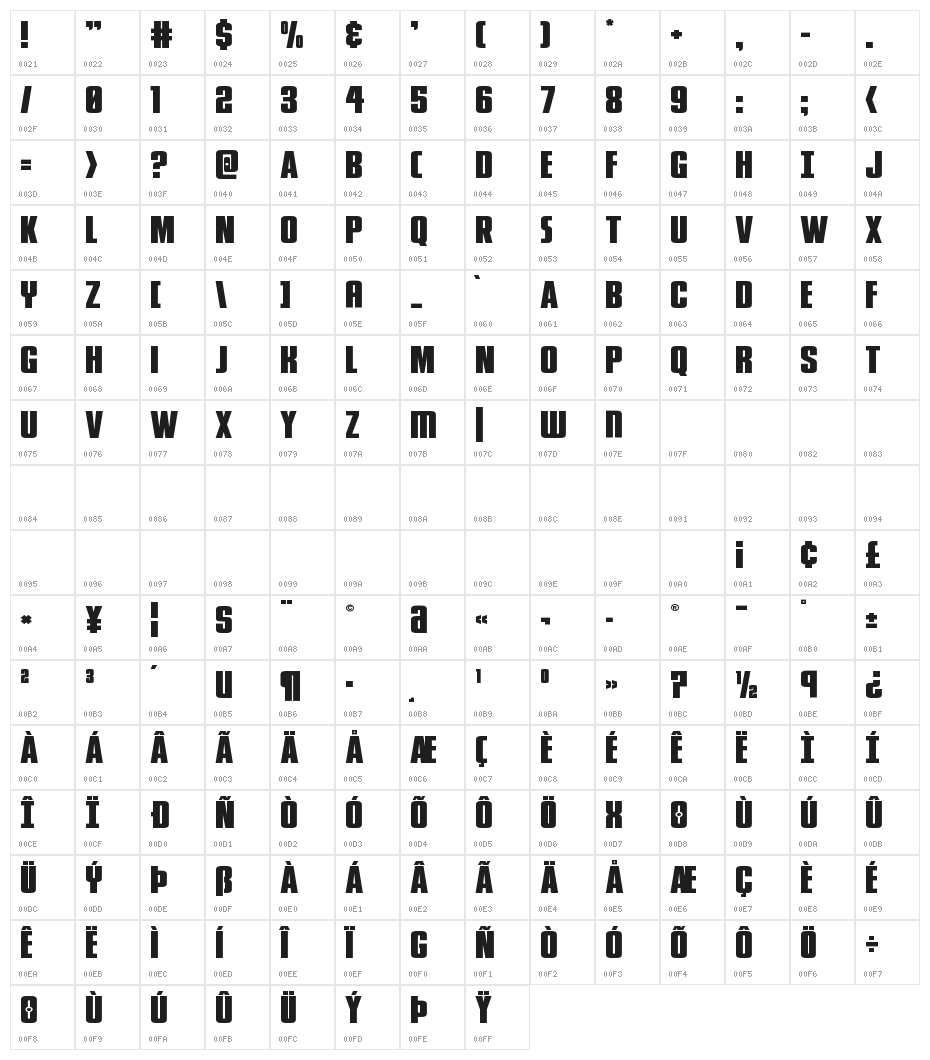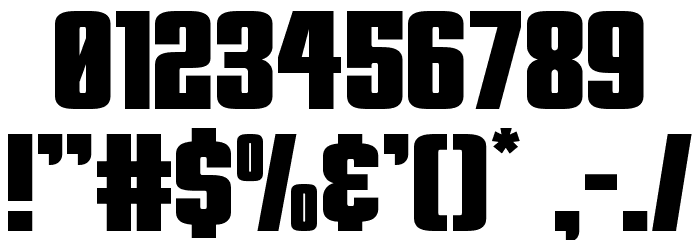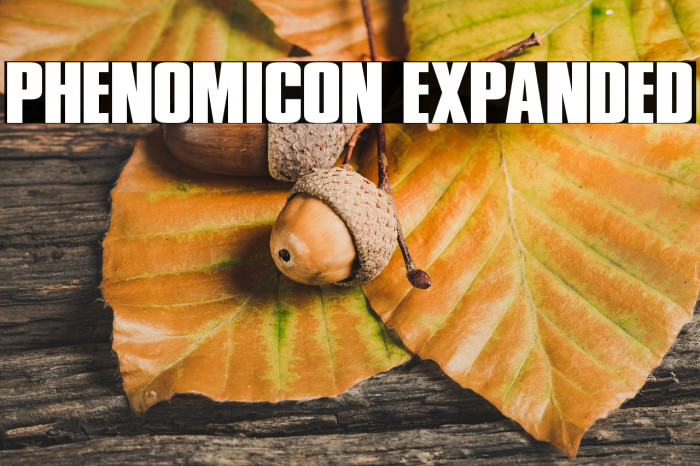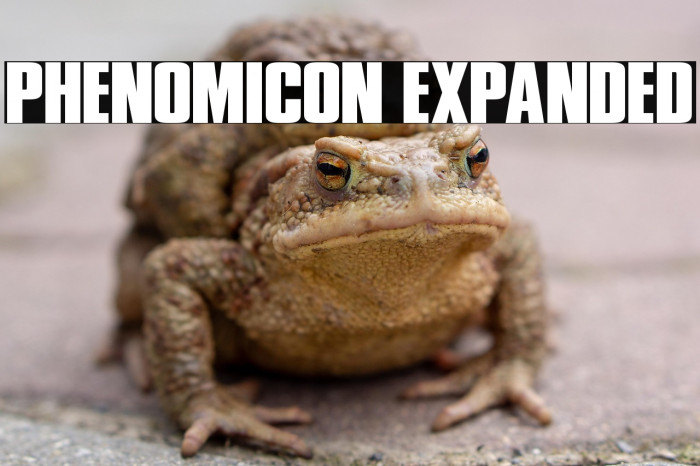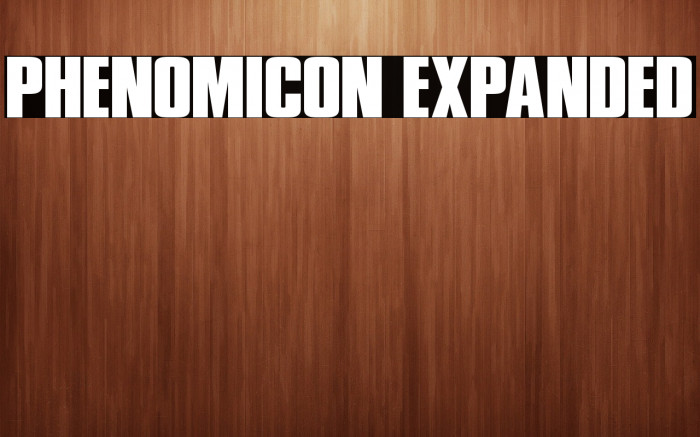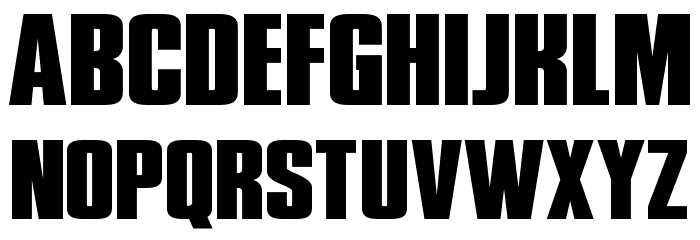
Phenomicon Expanded Font
Phenomicon Expanded Description
This font is a bold, impactful display typeface with a strong presence. Its expanded width and heavy weight make it ideal for grabbing attention. The characters are uniformly wide, creating a sense of stability and strength. The uppercase letters are particularly striking, with their solid, block-like appearance. The numbers and special characters maintain the same boldness, ensuring consistency across all elements. This font is perfect for projects that require a commanding visual impact.
| Proposed Projects | Ideal for posters, headlines, branding, and any design requiring a strong visual impact. |